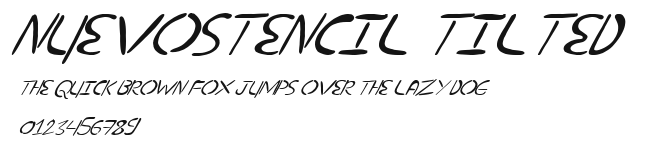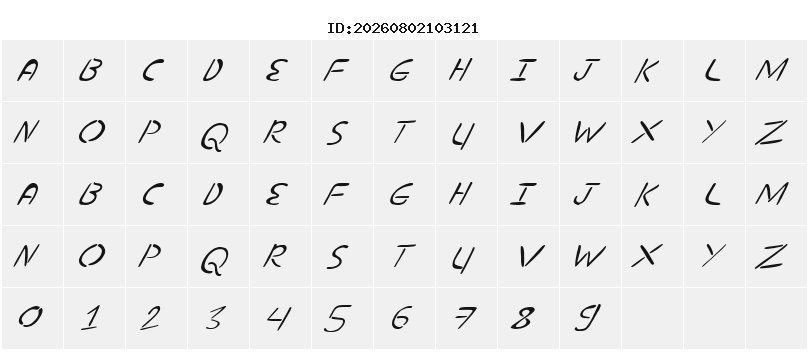
nuevostencil tilted Preview
• Font Name: nuevostencil tilted
• Designer: max infeld
• Manufacturer: xerographer.com
• Description: nuevo stencil tilted
About nuevostencil tilted.ttf
nuevostencil tilted.ttf is a modern, elegant sans-serif font designed for ultimate readability and visual harmony. Perfect for branding, headlines, web design, and print materials.